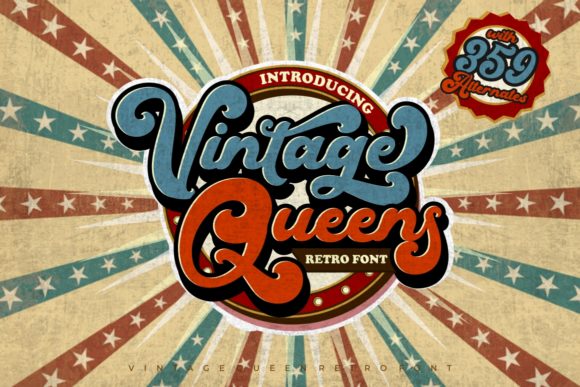
Vintage Queens Font
This regal typeface is perfect for luxury fashion branding, vintage jewelry packaging, classical theater programs, heritage hotel signage, antique shop materials, royal wedding invitations, historical museum exhibits, and aristocratic event decorations. Vintage Queens Font delivers majestic elegance in applications where royal sophistication and timeless nobility are essential for creating memorable brand experiences that evoke the grandeur of bygone aristocratic eras.
What makes Vintage Queens Font so exciting is its masterful embodiment of royal heritage and aristocratic refinement through exquisite typography. The font features ornately detailed letterforms with regal flourishes and decorative elements that capture the essence of Victorian-era elegance and royal court traditions. Each character has been meticulously crafted to convey nobility and prestige while maintaining excellent readability across various luxury applications. The typeface's majestic personality creates immediate associations with royal lineage and aristocratic quality, making it perfect for brands seeking to communicate exclusivity, heritage, and uncompromising luxury through their visual identity.
The Vintage Queens Font includes magnificent style variations: Regular, Bold, Ornamental, and Shadow versions. This royal collection allows designers to create layered effects and establish regal typographic treatments that perfectly capture the essence of aristocratic grandeur. Each style maintains the font's inherent nobility while providing different levels of decorative sophistication for various luxury applications and royal design themes.
Whether you're developing heritage luxury brand identities, creating exclusive royal-themed materials, or designing aristocratic marketing campaigns, Vintage Queens Font Free Download provides the majestic aesthetic that commands respect from discerning luxury audiences. Its royal character makes it particularly suitable for luxury hotels, high-end jewelry brands, exclusive event planners, and premium heritage companies. The font's commanding presence ensures memorable impact in both ceremonial applications and sophisticated branding materials, while its timeless appeal connects contemporary luxury with classical royal traditions.
This magnificent typeface represents the ultimate choice for designers who understand the enduring power of royal elegance in creating authentic luxury brand experiences that celebrate aristocratic heritage.